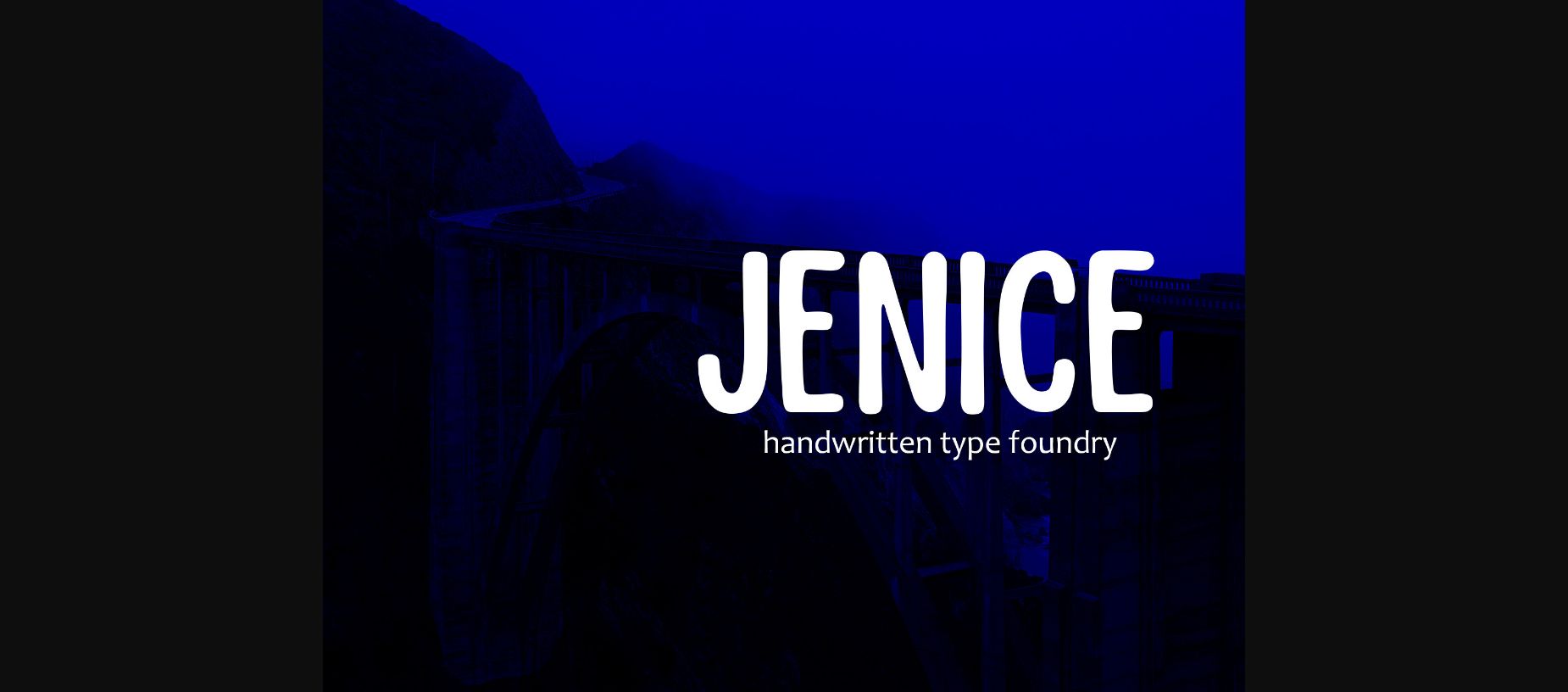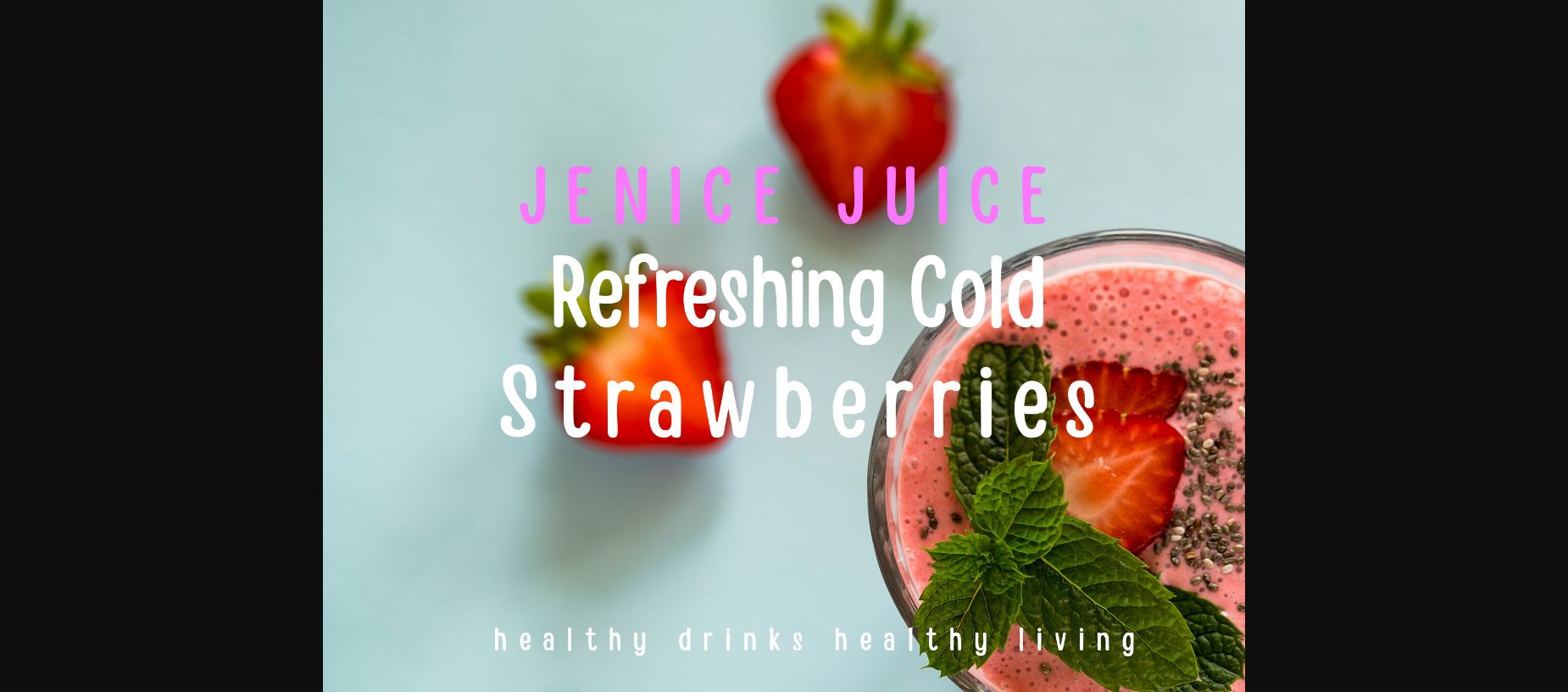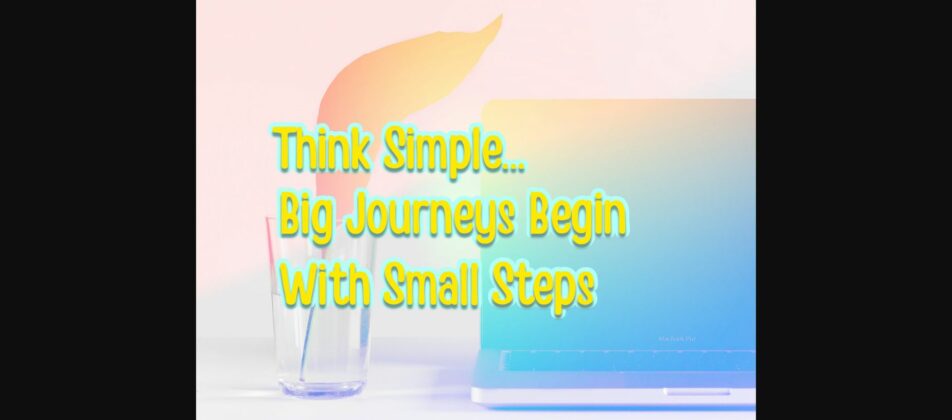
Jenice Font
About Jenice Font
Introducing Jenice, a typeface that masterfully balances tranquility and determination. Infused with the simple elegance of hand-written notes, Jenice exudes an aura of firmness, yet never loses its clarity. This modern masterpiece of typography is a harmonious blend of individuality and practicality, designed to breathe life into your creative expressions. With Jenice, your words will convey more than just a message, they will embody an impression, a sentiment that leaves a lasting trace in the reader’s mind.